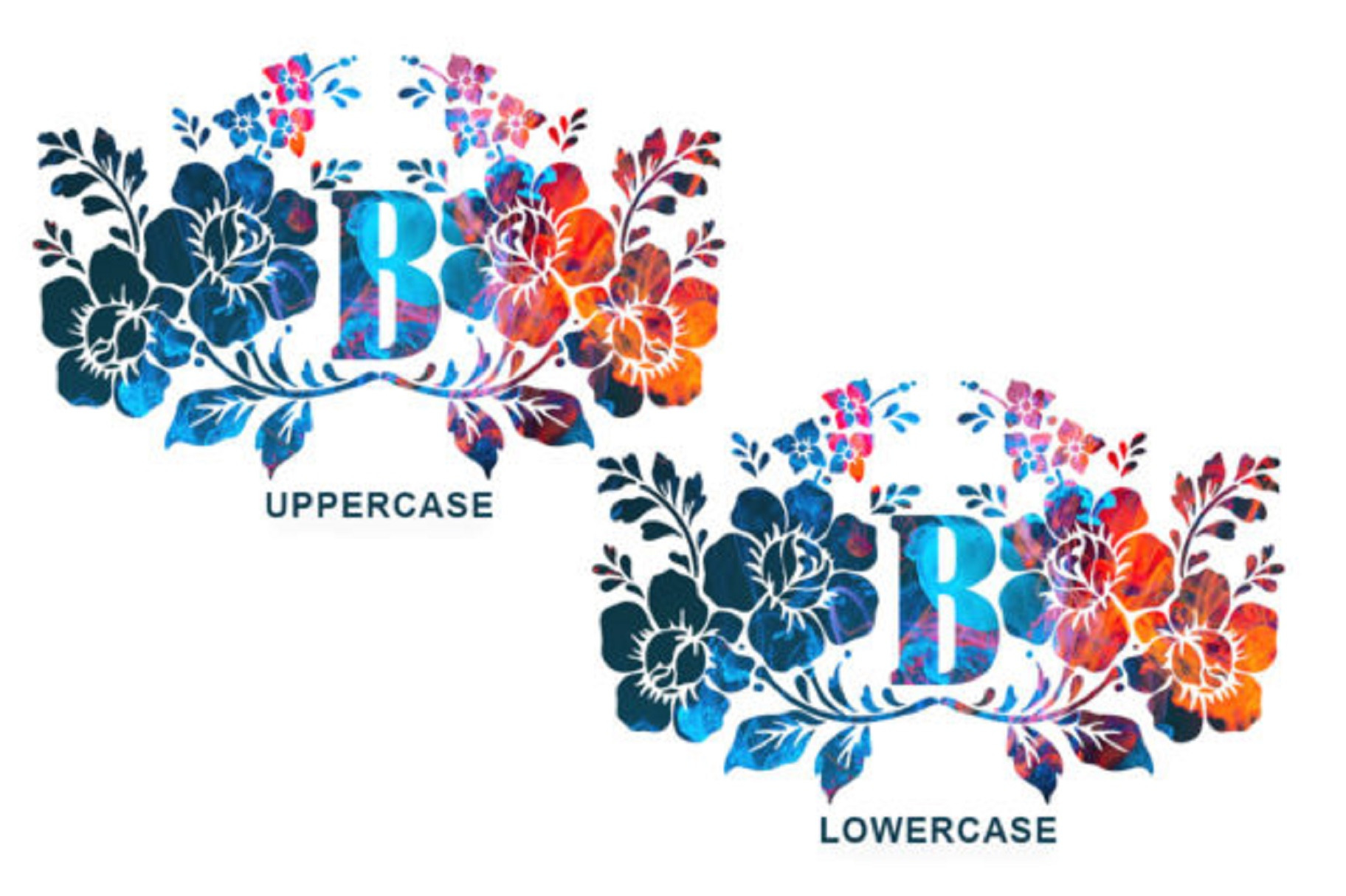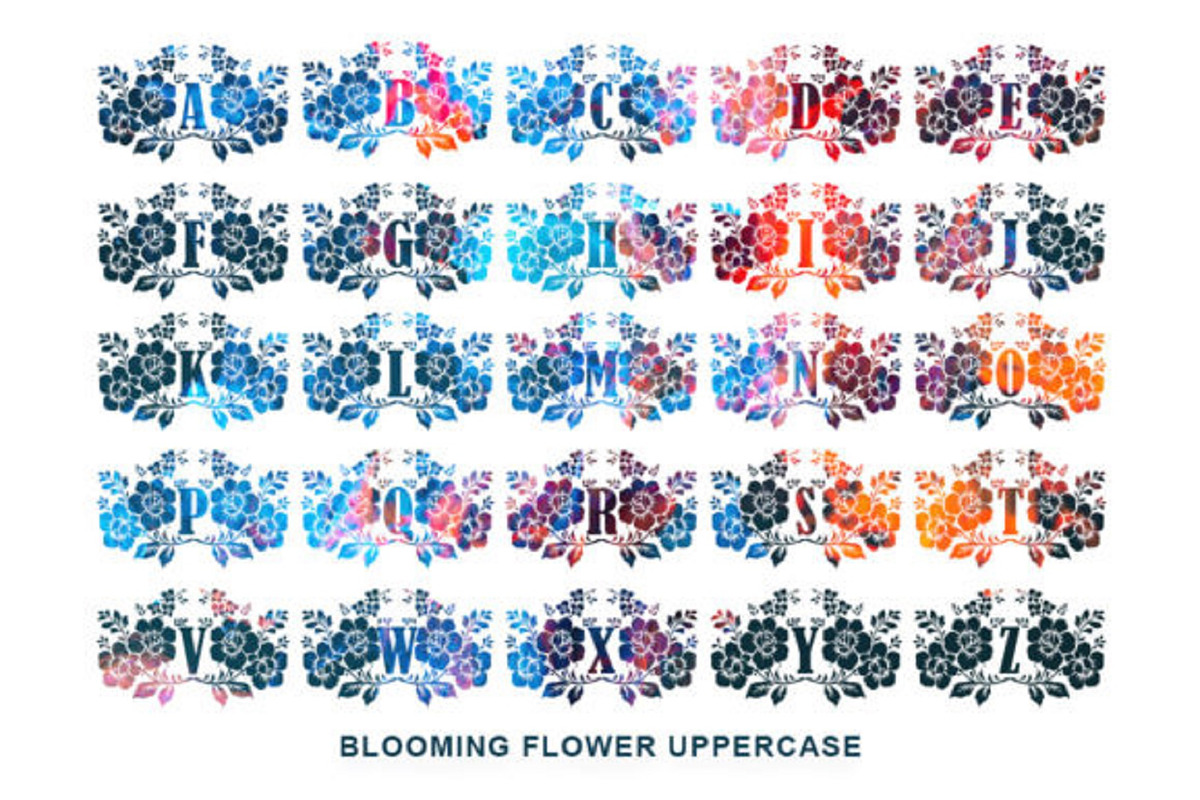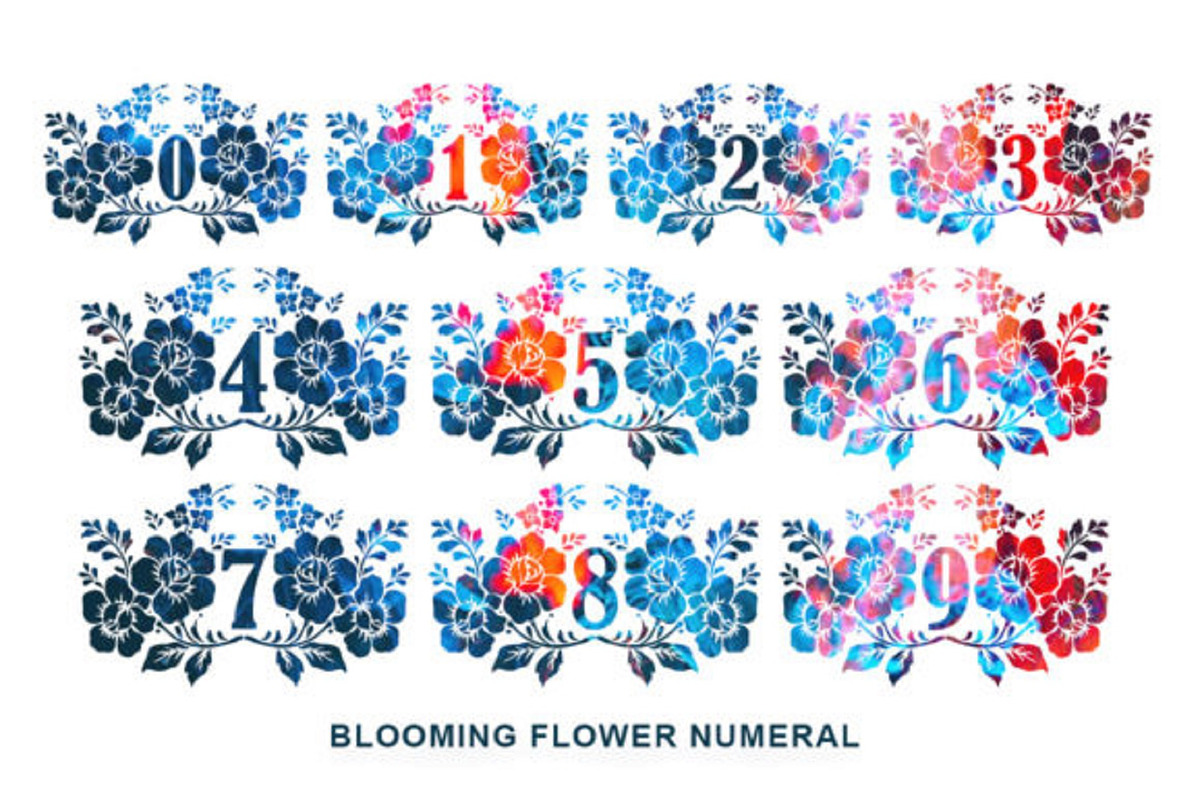
Blooming Flower Monogram Font
Blooming Flower Monogram is a ravishing and highly detailed decorative font. Its natural and unique style makes it incredibly fitting for a large pool of designs. The only limit is your imagination!